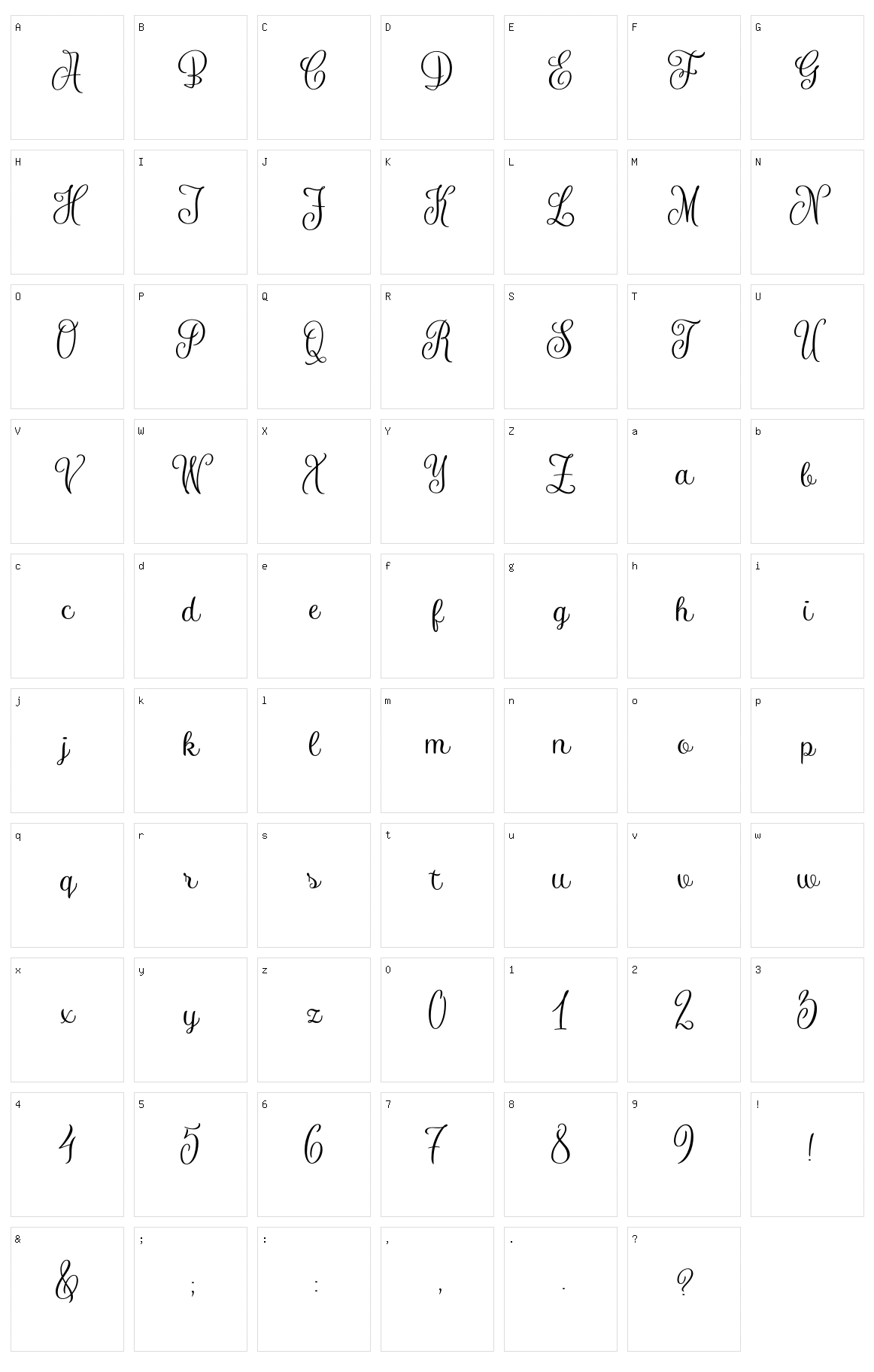
Snow You is an upright calligraphy script font.
You can create nice handmade typography with it either alone or combining it with other scripts for the best result depending on your project, whether it be